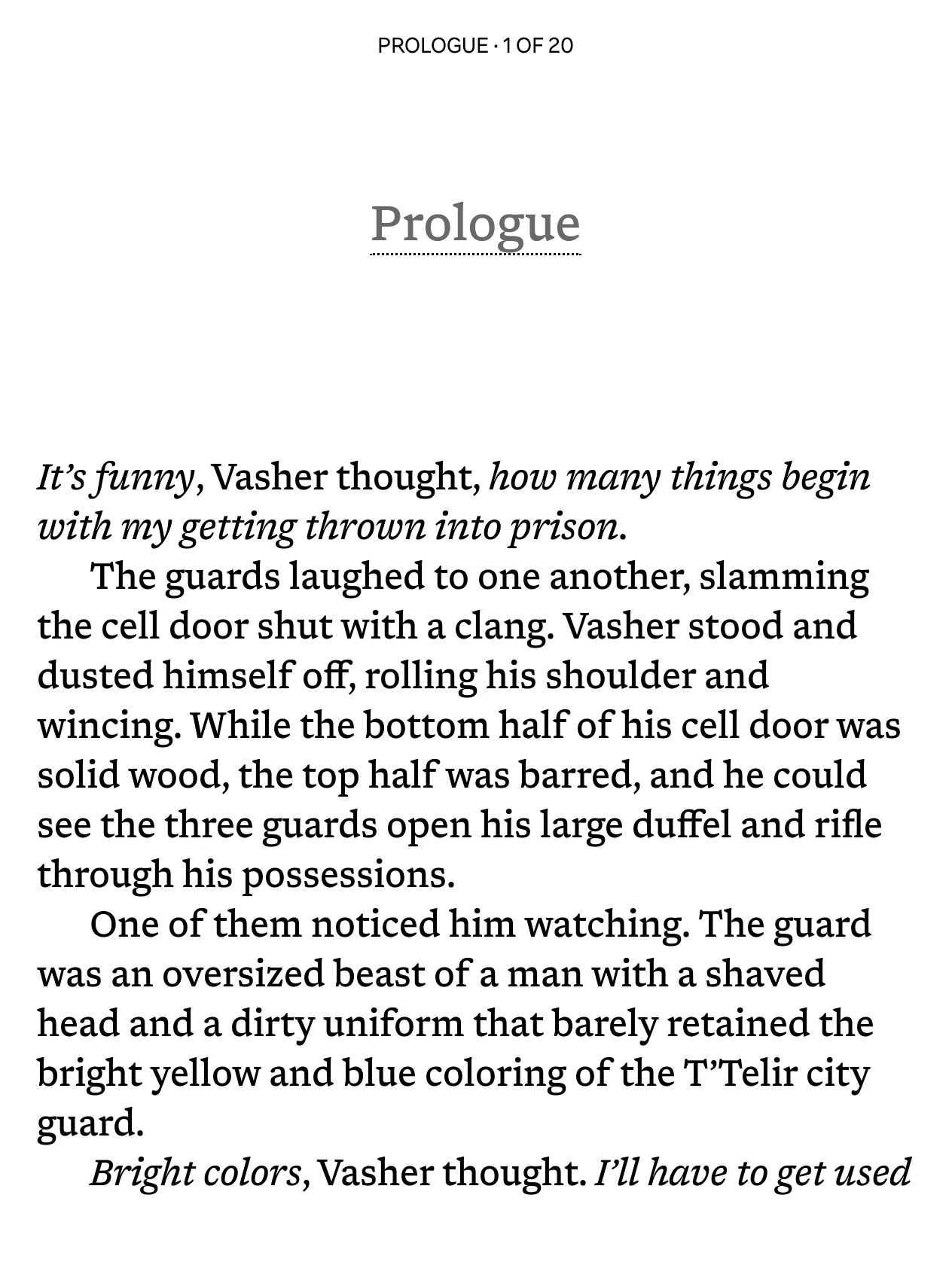
# Readerly **Readerly** is modified font based on [Newsreader](https://github.com/productiontype/Newsreader), while attempting to be metrically very similar to [Bookerly](https://en.wikipedia.org/wiki/Bookerly), the default font on Kindle devices, to provide a similar reading experience. When I was doing my usual font tweaking for my [ebook-fonts](https://github.com/nicoverbruggen/ebook-fonts) repository, I stumbled upon variable fonts exporting. Doing this for Newsreader gave me some interesting results at small optical sizes: the font was now reminding me of Bookerly. I asked myself the question: how close can we get to the metrics of Bookerly while still retaining Newsreader and keeping the font licensed under the OFL, and maybe making some mild manual edits? The goal was to get a metrically/visually similar font, without actually copying glyphs or anything that would infringe upon the rights of the original creators; after all, Newsreader is a very beautiful font as a starting point. To get to the final result, I decided to use the variable font and work on it. The original is located in `src` and is available under the same OFL as the end result, which is included in `LICENSE`. ## Downloads Two versions are generated via the pipeline of the [latest release](../../releases/latest): - **KF_Readerly.zip** — Kobo-optimized TrueType fonts with a legacy kern table and `KF` prefix. Use this if you have a Kobo e-reader, this version contains optimizations made with [Kobo Font Fix](https://github.com/nicoverbruggen/kobo-font-fix). - **Readerly.zip** — The standard, unmodified fonts, as TrueType files. Useful for other e-readers and use on your desktop computer or smartphone. ## Project structure - `src`: Newsreader variable font TTFs - `build.py`: The build script to generate Readerly - `LICENSE`: The OFL license - `COPYRIGHT`: Copyright information, later embedded in font - `VERSION`: The version number, later embedded in font After running `build.py`, you should get: - `out/ttf`: final TTF fonts (generated) ## Prerequisites - **Python 3** - **[fontTools](https://github.com/fonttools/fonttools)** — install with `pip install fonttools` - **[FontForge](https://fontforge.org)** — the build script auto-detects FontForge from PATH, Flatpak, or the macOS app bundle - **[ttfautohint](https://freetype.org/ttfautohint/)** — required for proper rendering on Kobo e-readers ### Linux preparation ``` sudo apt install ttfautohint # Debian/Ubuntu sudo dnf install ttfautohint # Fedora brew install ttfautohint # Bazzite (immutable Fedora) pip install fonttools flatpak install flathub org.fontforge.FontForge ``` ### macOS preparation #### System Python On macOS, if you're using the built-in version of Python (via Xcode), you may need to first add a folder to your `PATH` to make `font-line` available, like: ```bash echo 'export PATH="$HOME/Library/Python/3.9/bin:$PATH"' >> ~/.zshrc brew install fontforge ttfautohint brew unlink python3 # ensure that python3 isn't linked via Homebrew pip3 install fonttools font-line source ~/.zshrc ``` #### Homebrew Python If you're using `brew install python`, pip requires a virtual environment: ```bash brew install fontforge ttfautohint python3 -m venv .venv source .venv/bin/activate pip install fonttools ``` ## Building **Note**: If you're using `venv`, you will need to activate it first: ``` source .venv/bin/activate ``` If you are just using the system Python, you can skip that step and simply run: ``` python3 build.py ``` To customize the font family name, disable old-style kerning, or skip outline fixes: ``` python3 build.py --customize ``` The build script (`build.py`) uses `fontTools` and FontForge to transform the Newsreader variable fonts into Readerly. After export, it post-processes the TTFs: clamping x-height overshoots that cause uneven rendering on e-ink, normalizing style flags, and autohinting with `ttfautohint` for Kobo's FreeType renderer. Configuration and step-by-step details live in the header comments of `build.py`.